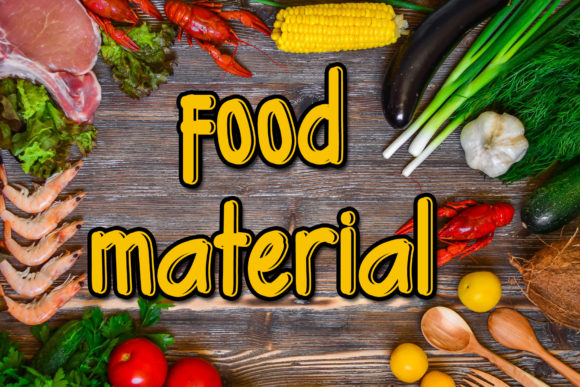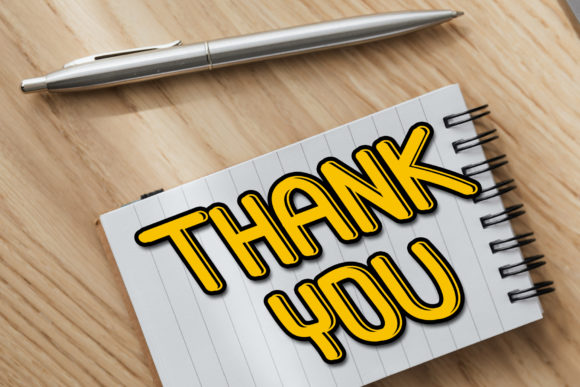
Meet the Quirky Charm of Double Cheese Font
Have you ever been brainstorming a new project and suddenly, a burst of creativity strikes you? You see a vision of vibrant colors, playful textures, and a dash of whimsy. That’s exactly what happened to me when I first laid eyes on the Double Cheese Font. Its adorable, hand-drawn design is like a warm hug for your design senses.
This cute and quirky display font is more than just a pretty face – it’s a powerful tool to bring your ideas to life. Double Cheese Font is designed to make your designs even more realistic and spectacular, with its unique blend of elegance and playfulness. Whether you’re a seasoned designer or just starting out, this font is a valuable addition to your toolkit.
Double Cheese Font Key Features
- Unique Characteristics: The Double Cheese Font features a unique blend of modern and retro elements, with a distinctive “double cheese” design element that adds a touch of whimsy to any text.
Designer Review: Double Cheese Font
Double Cheese Font is an interesting addition to the world of typography. Here’s what I think:
- The unique combination of two distinct cheese-related font styles creates a visually appealing effect.
- The font is highly customizable, allowing users to adjust the spacing, weight, and other parameters to suit their needs.
- The Double Cheese Font comes with a wide range of language support, making it suitable for diverse design projects.
- The font can be overwhelming in large quantities, which may detract from the overall design.
- The high level of customization can lead to inconsistent font usage, especially for designers without extensive experience.
- The font’s uniqueness may not be suitable for all design projects, particularly those requiring a more conservative or traditional approach.
The Double Cheese Font is a bold and eye-catching addition to any design project. While it may not be suitable for every project, its unique features and high level of customization make it an excellent choice for designers looking to add some personality to their work. However, it’s essential to use it judiciously and with consideration for the overall design goals.
Some tips for getting the most out of the Double Cheese Font include using it for headings or titles, as it is a bold and eye-catching font. Common use cases include creating social media graphics, designing flyers or posters, and adding a playful touch to presentations or documents.
Alternatives to “Double Cheese Font” for Designers
Open Sans is a clean, modern sans-serif font that is highly legible and suitable for body text. It is a versatile font that works well for digital and print materials. When to use: Body text, digital materials, and websites.
Compared to Double Cheese Font, Open Sans has a more streamlined and professional look, making it a better choice for formal and business-related materials. While Double Cheese Font has a more playful and casual feel, Open Sans is more suitable for everyday use.
Lato is a sans-serif font with a friendly and approachable feel. It is highly customizable and works well for both digital and print materials. When to use: Body text, digital materials, and websites.